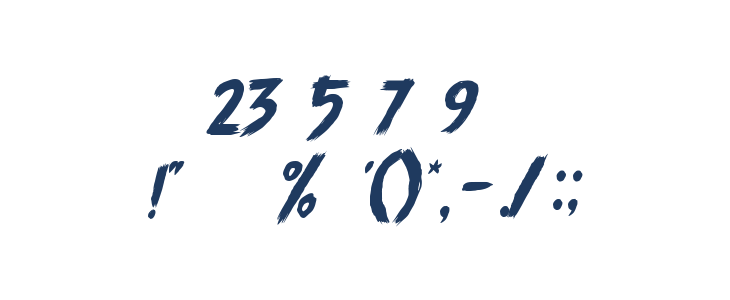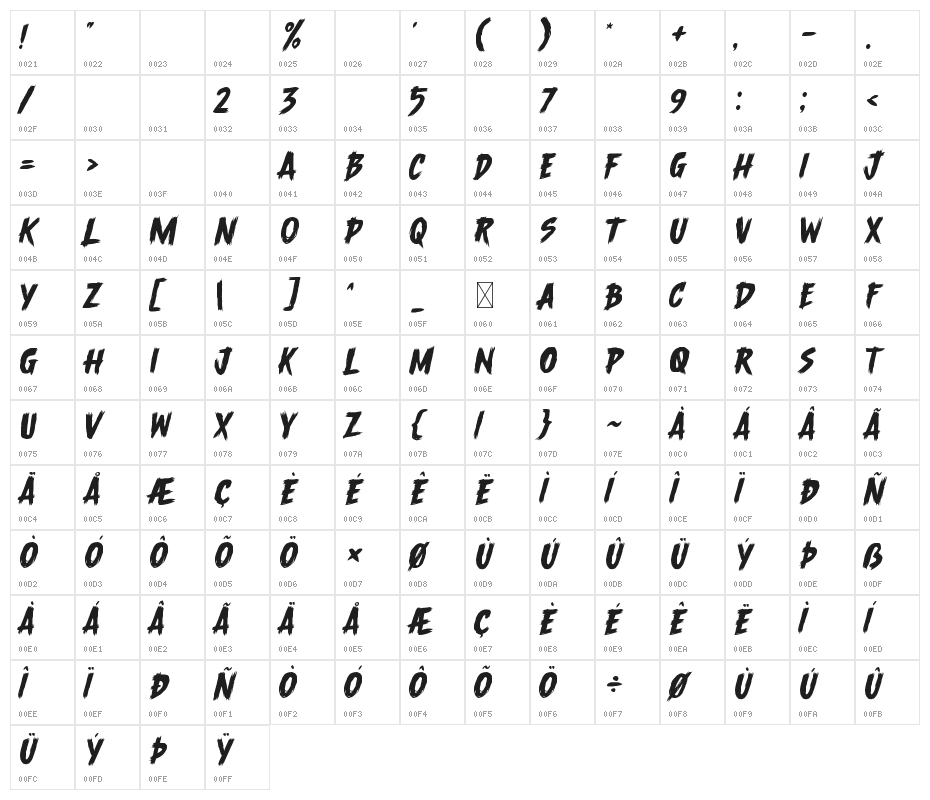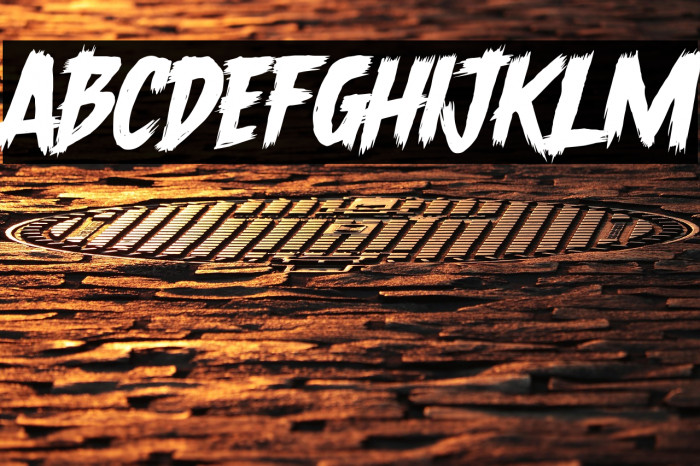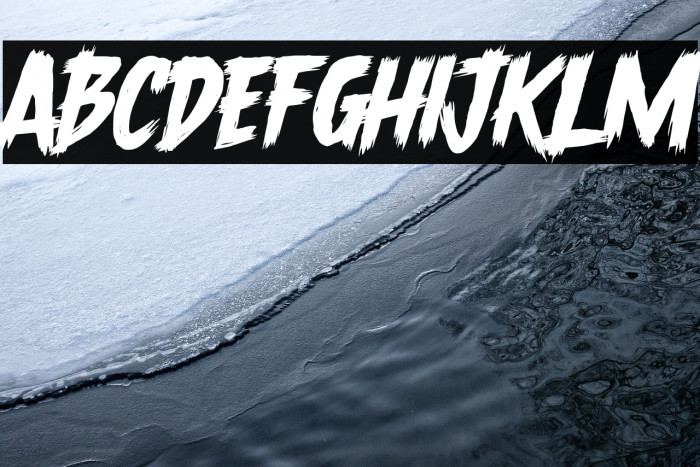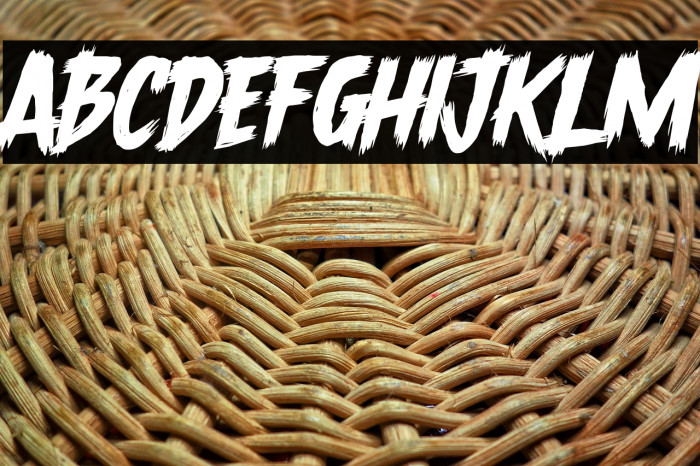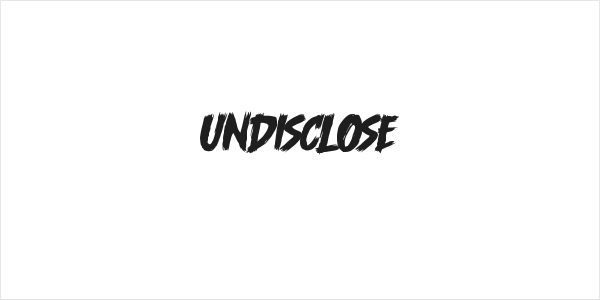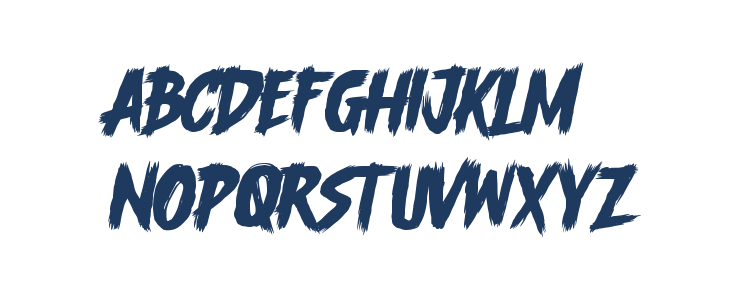
Undisclose Font
Undisclose Description
This font features a bold and dynamic brush style, characterized by its energetic strokes and uneven edges. The letters are crafted with a sense of motion, giving them a lively and expressive appearance. The uppercase and lowercase letters maintain a consistent style, with a slightly aggressive and edgy look. The numerals and special characters follow the same design, ensuring a cohesive visual experience. This font's unique brush texture adds a handcrafted feel, making it stand out in various design contexts.
| Proposed Projects | Ideal for projects that require a bold statement, such as posters, album covers, or branding for creative industries. |